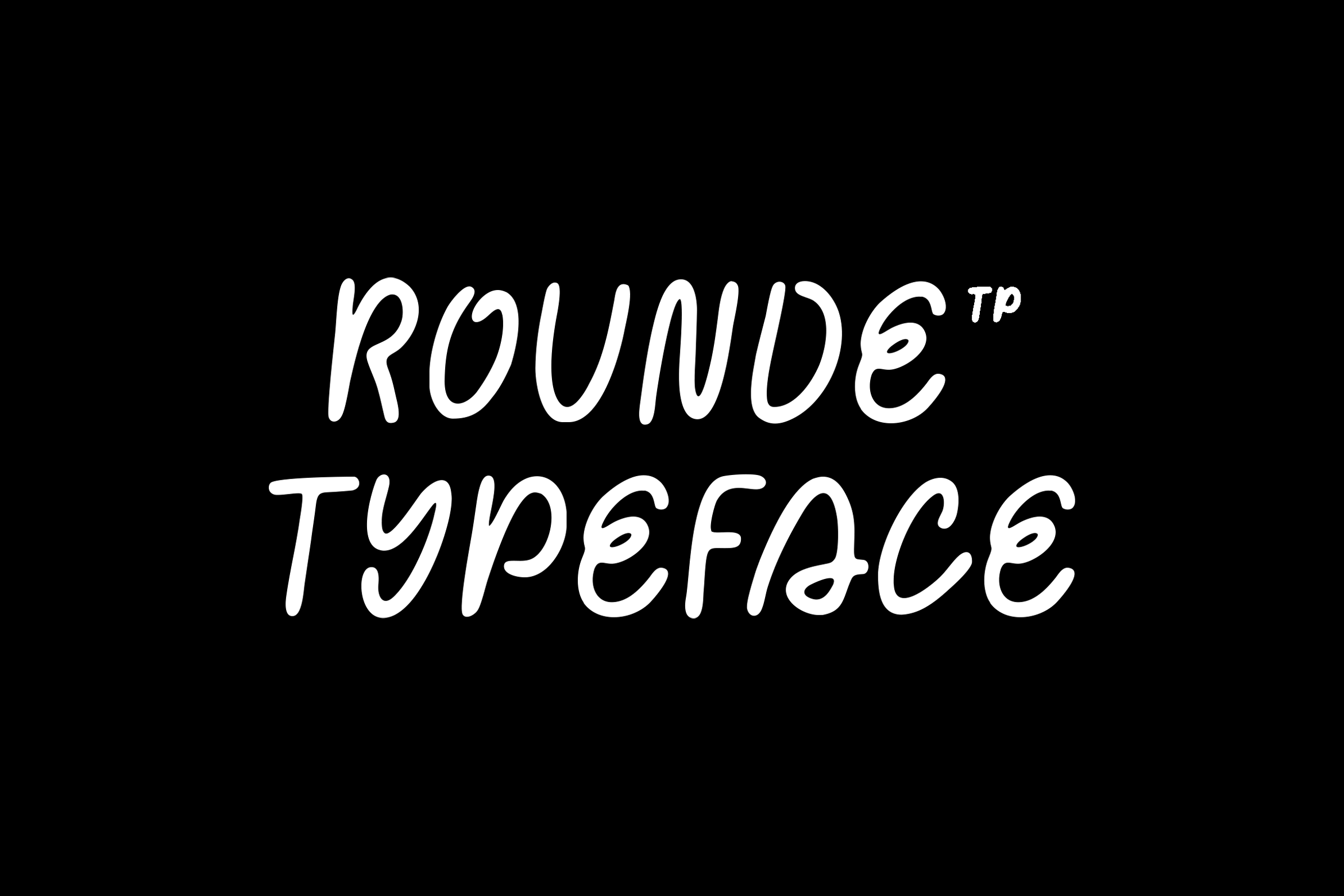
Rounde - Handwritten Rounded Font
Rounde is a smooth handwritten typeface with soft rounded edges that captures the cozy warmth of a morning coffee or freshly baked bread. Designed for cafés, bakeries, and handmade product packaging, this font blends organic charm with modern readability. Perfect for menus, signage, and social media branding that need a personal and inviting touch.